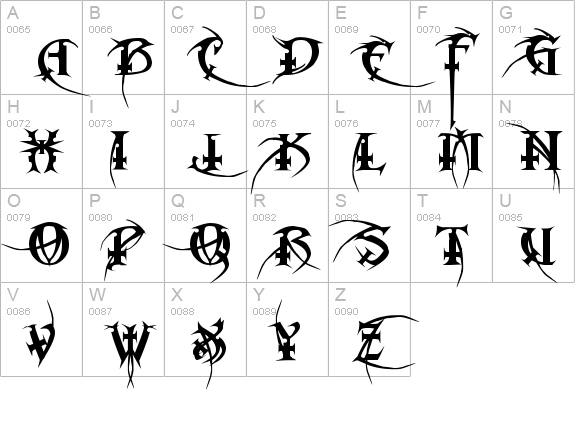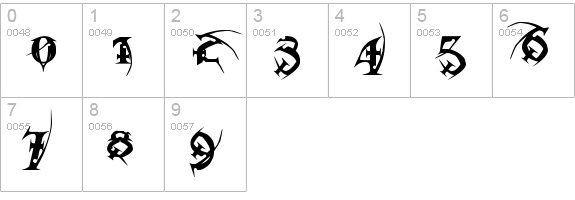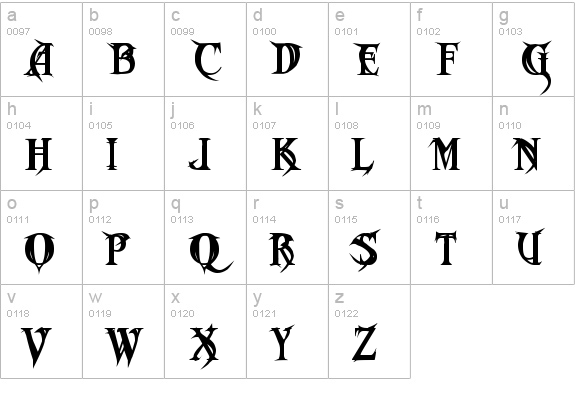
Metal Macabre Font Details
Introducing Metal Macabre, a dark and chilling font that embodies the essence of the macabre and the raw power of heavy metal. This hauntingly beautiful typeface captures the intensity and darkness of the metal genre, making it perfect for album covers, posters, merchandise, and any project that demands an edgy and foreboding aesthetic. Metal Macabre features sharp, angular letterforms that exude an air of mystery and intrigue. Each character is meticulously crafted with jagged edges, creating a visually striking display. The letters are adorned with intricate details, reminiscent of gothic architecture and twisted metal, further enhancing the font's haunting allure. This font is not only visually captivating but also highly versatile. With its bold and commanding presence, Metal Macabre can be used to create impactful headlines, captivating logos, and eye-catching titles. It effortlessly brings a touch of darkness and atmospheric depth to any design, unleashing a sense of foreboding and intensity. One of the most enticing aspects of Metal Macabre is that it is freely available to download at FontsMarket.com. This means that designers and enthusiasts alike can easily access this font without any cost, adding an element of accessibility to its already impressive features. Whether you're a professional designer looking to add a touch of darkness to your next project or an aspiring artist exploring the world of typography, Metal Macabre is an excellent choice. So, indulge in the darkness and embrace the power of Metal Macabre. Download this font for free at FontsMarket.com and unleash its chilling beauty upon your designs. Let Metal Macabre take your projects to new depths of darkness and intensity, and leave a lasting impression on anyone who encounters them.